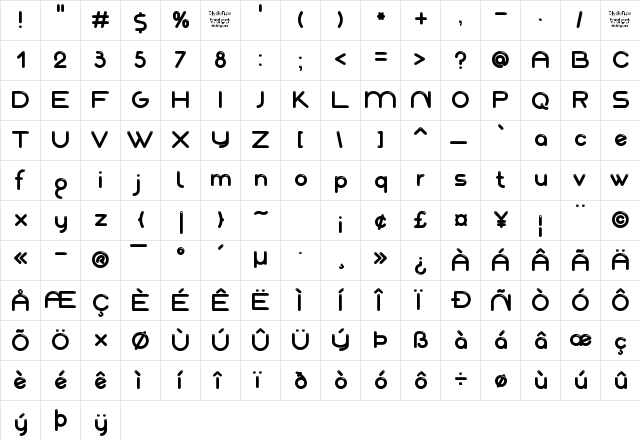
Akaju Regular
Design Context for Akaju Typeface
Akaju offers clean, dependable letterforms without strong stylistic allegiance, making it a practical choice for designers who need flexibility.